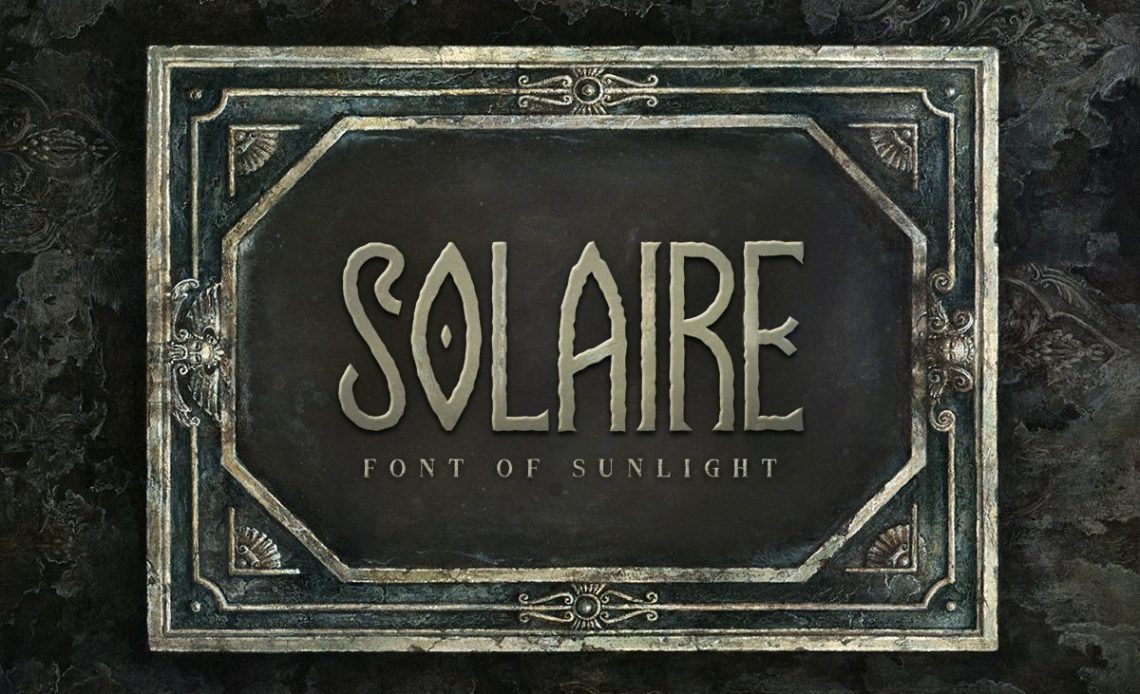
Are you looking for a font that will bring your storybook to life? Look no further than Solaire Typeface, a unique font family created by UI and Type designer Mehmet Tugcu. Solaire is a fantasy themed font family with a runic feel to it, making it the perfect addition to any storybook, fairy tale, or fantasy novel.
What sets Solaire apart from other fonts is its alternates, which can be toggled via caps lock. These alternates add a touch of whimsy and magic to your text, making it stand out from the rest. The font comes in regular and rough styles, giving you even more creative options.
Not only is Solaire Typeface visually stunning, but it is also practical. It includes uppercase multilingual letters, numbers, and punctuation, ensuring that it is easy to use and versatile for any language.
Mehmet Tugcu is an experienced and talented designer, and his passion for creating beautiful and unique fonts is evident in Solaire Typeface. So why settle for a boring font when you can add a touch of magic and wonder to your text with Solaire?